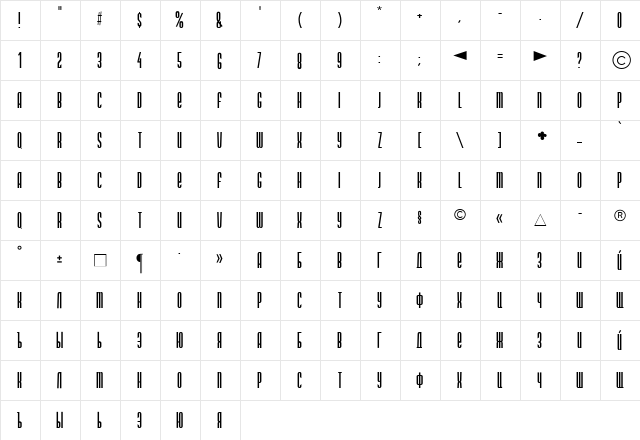
DS Narrow Extra-condensed Medium
Design Context for DS Narrow Typeface
DS Narrow is a composed and adaptable typeface that performs quietly and consistently across a wide range of design contexts. The condensed width makes it efficient for tight spaces without sacrificing legibility.
Pro Tip: Pair DS Narrow with a font of contrasting weight or personality to build a more expressive typographic hierarchy.